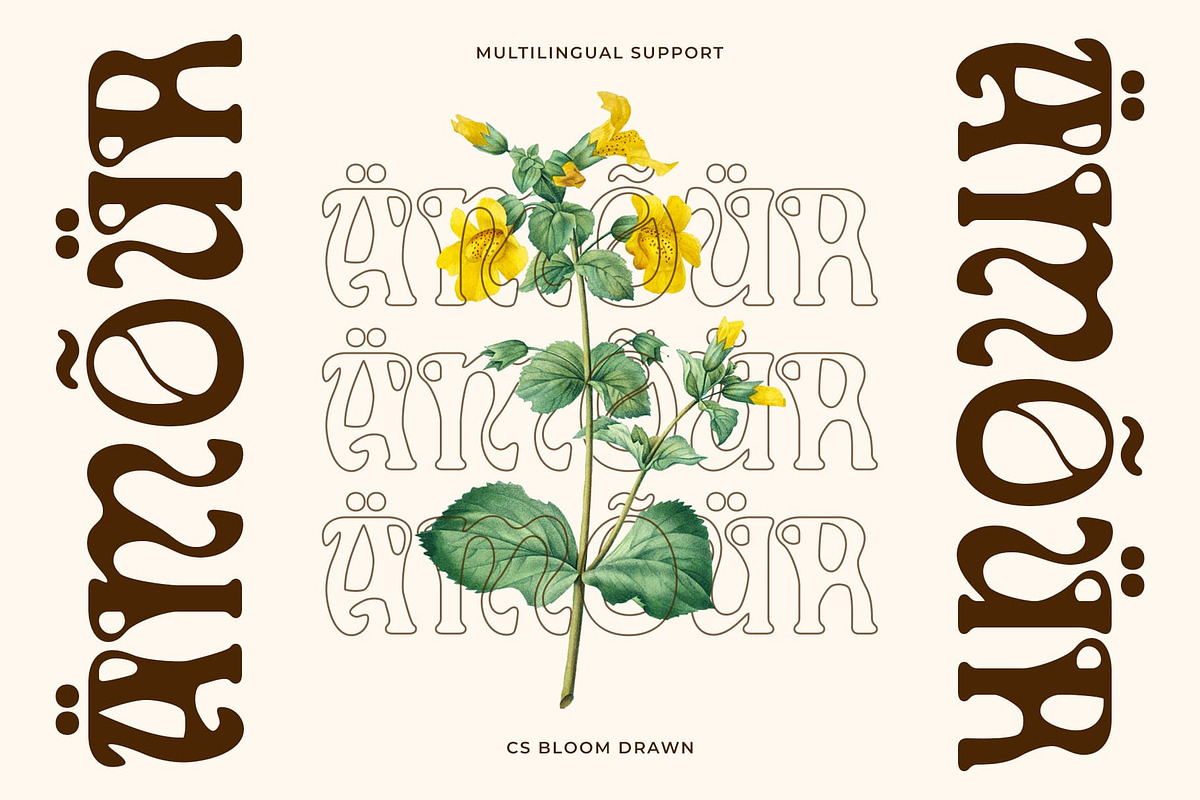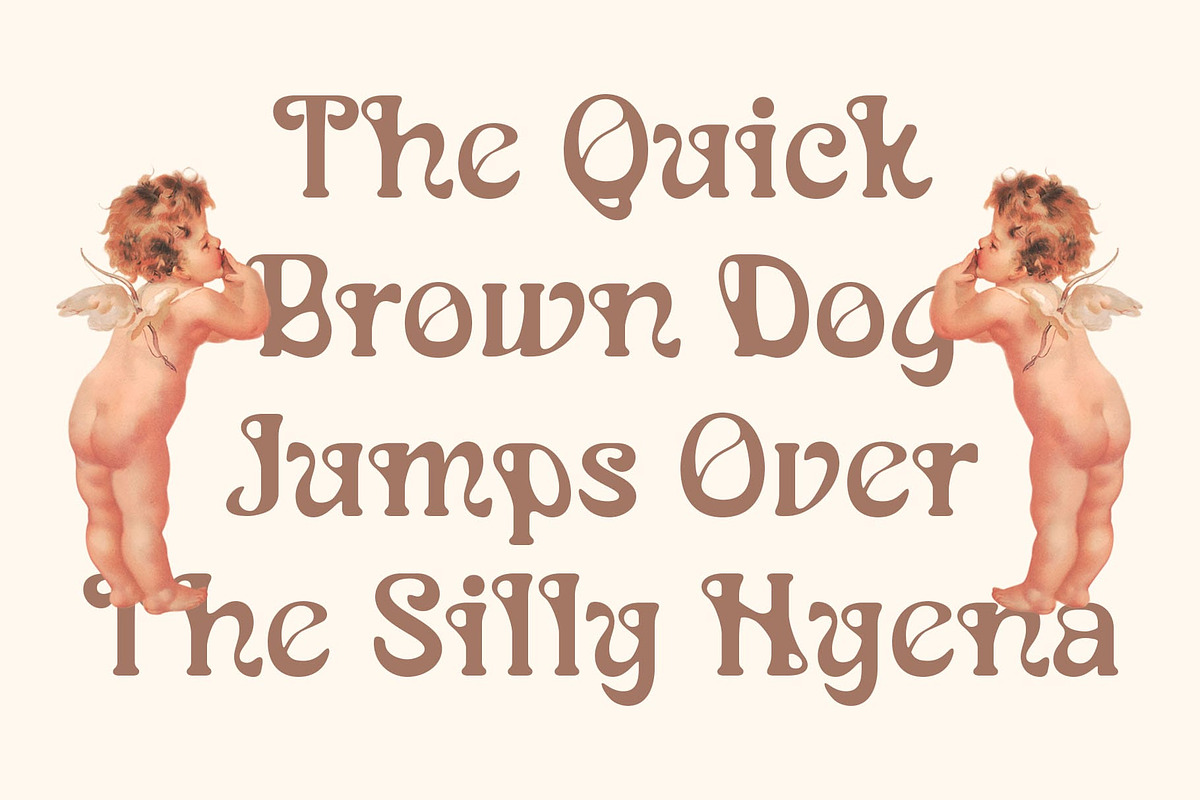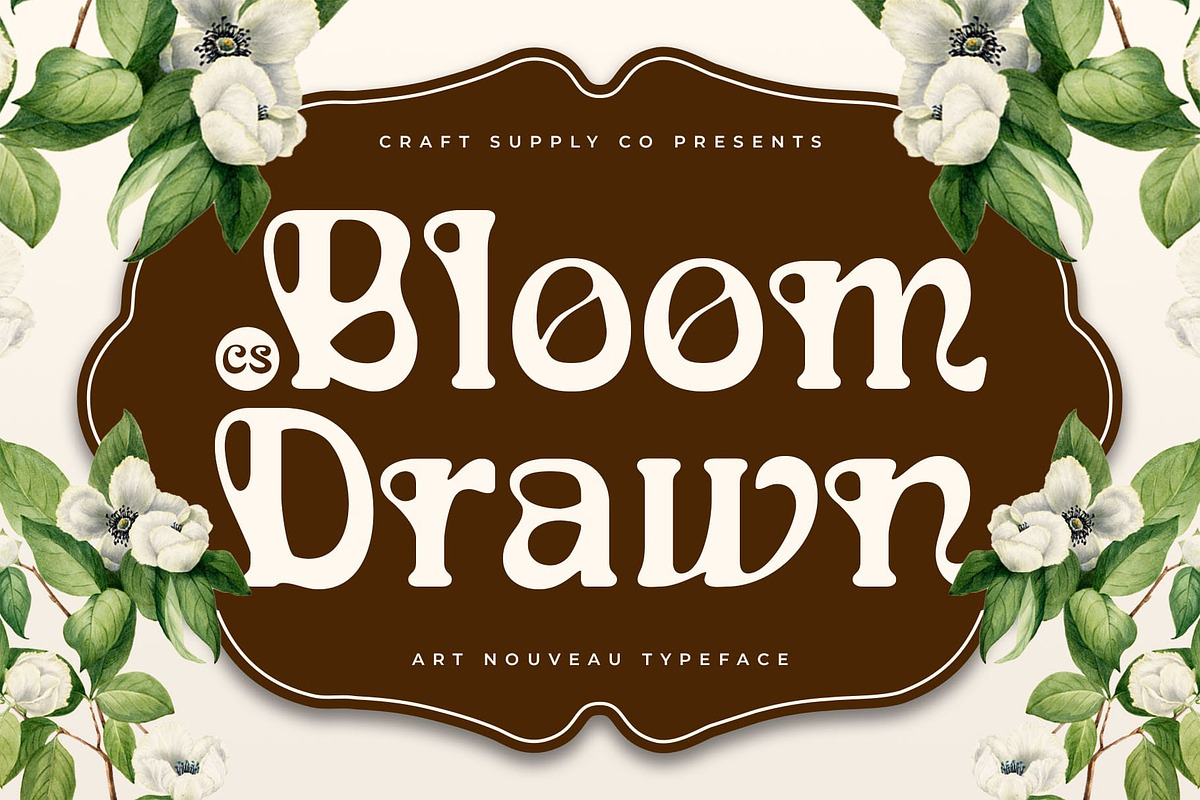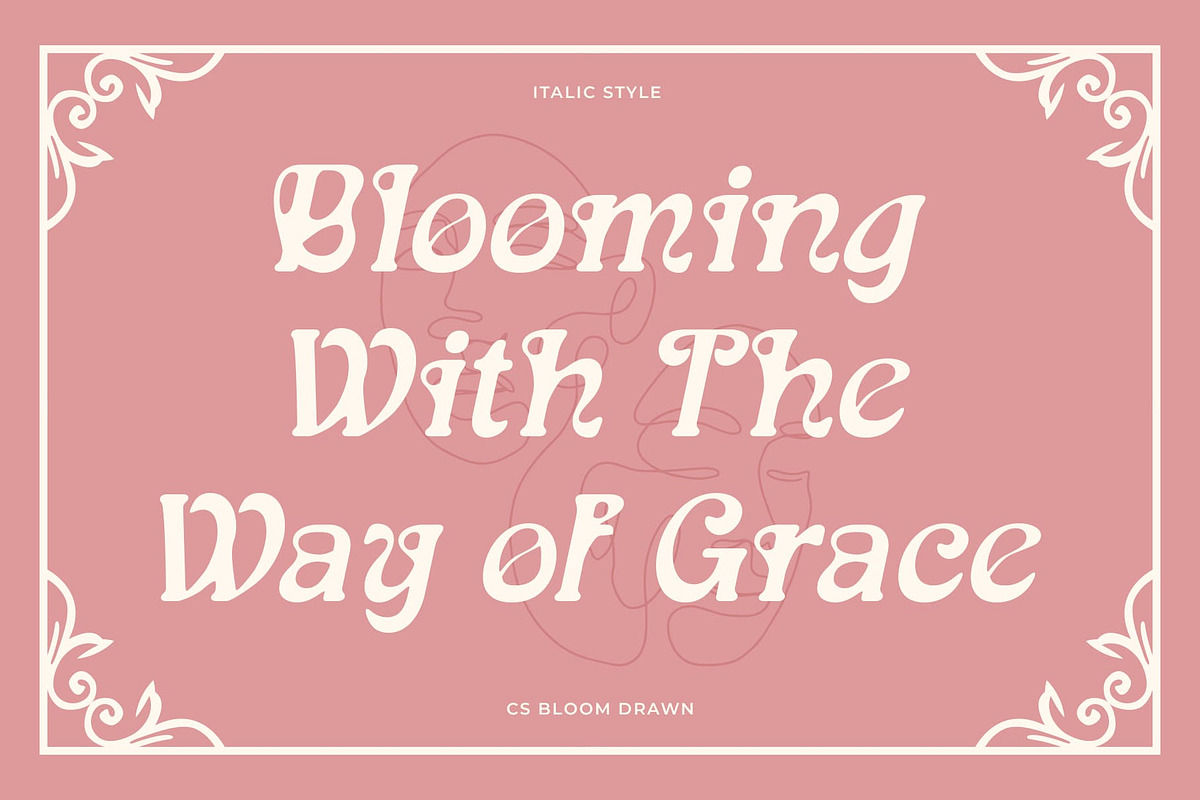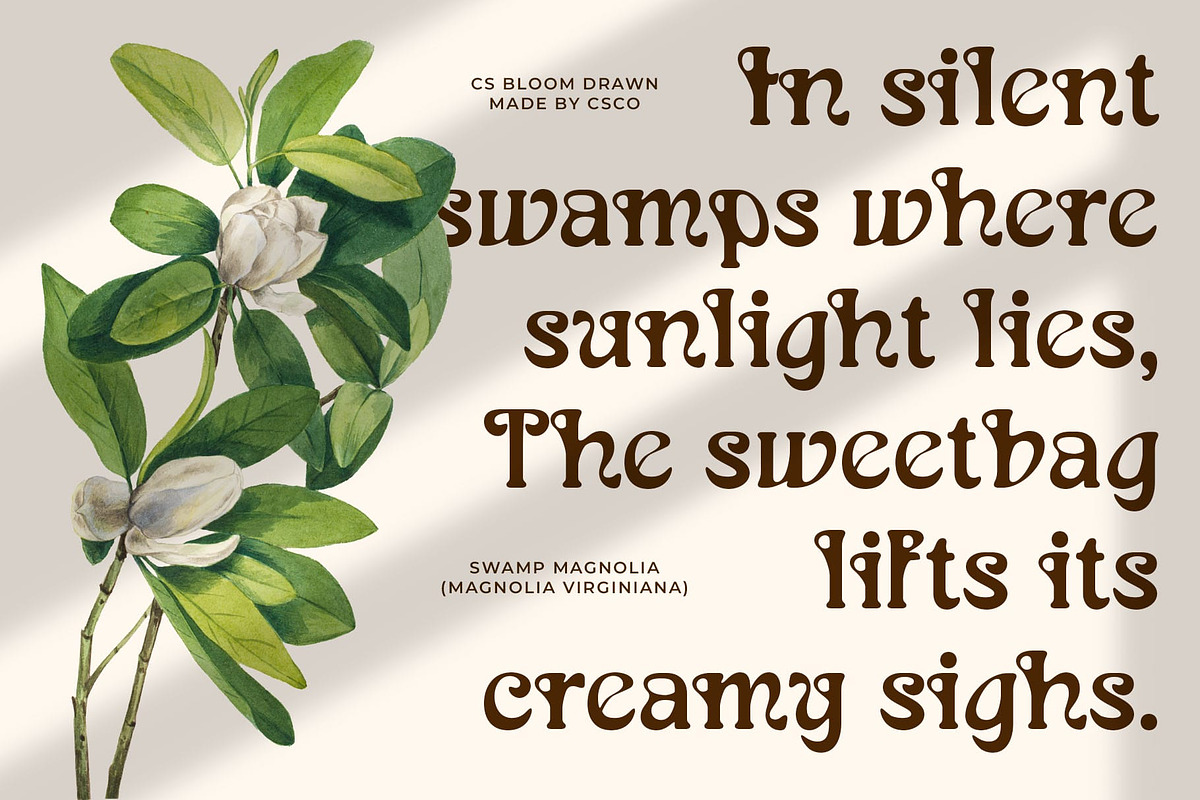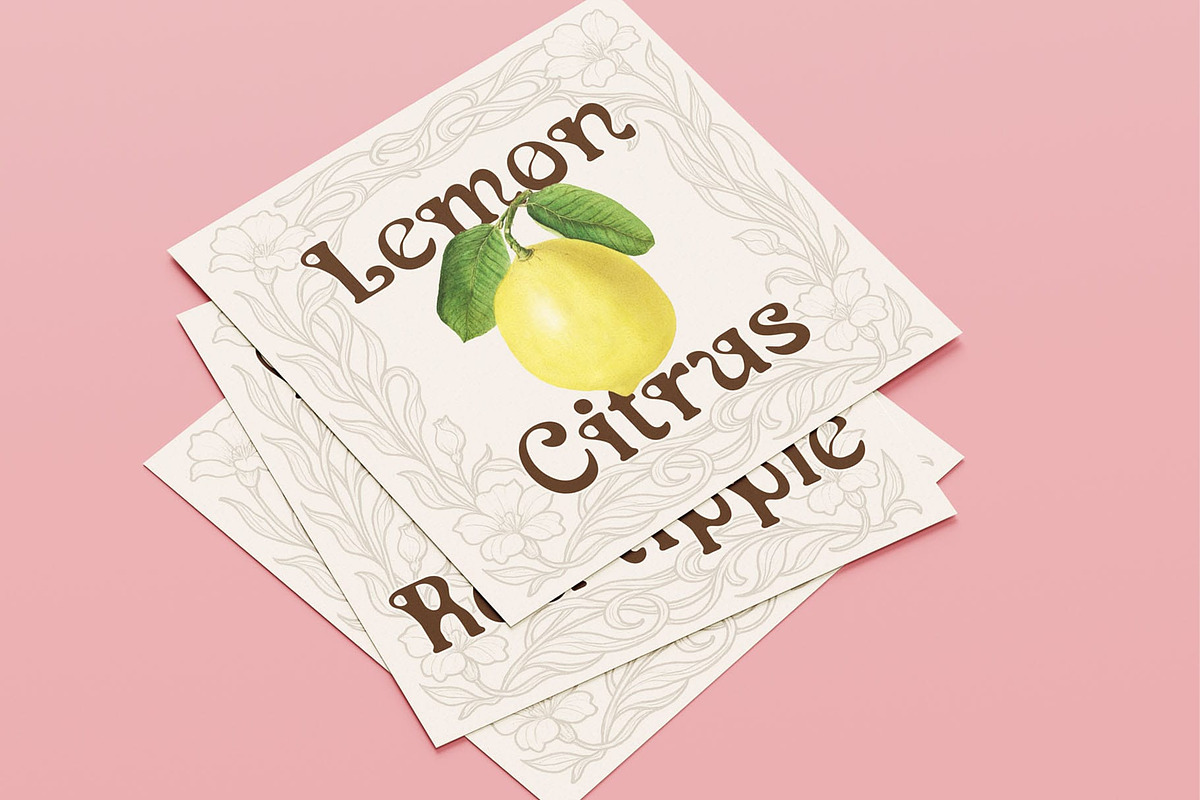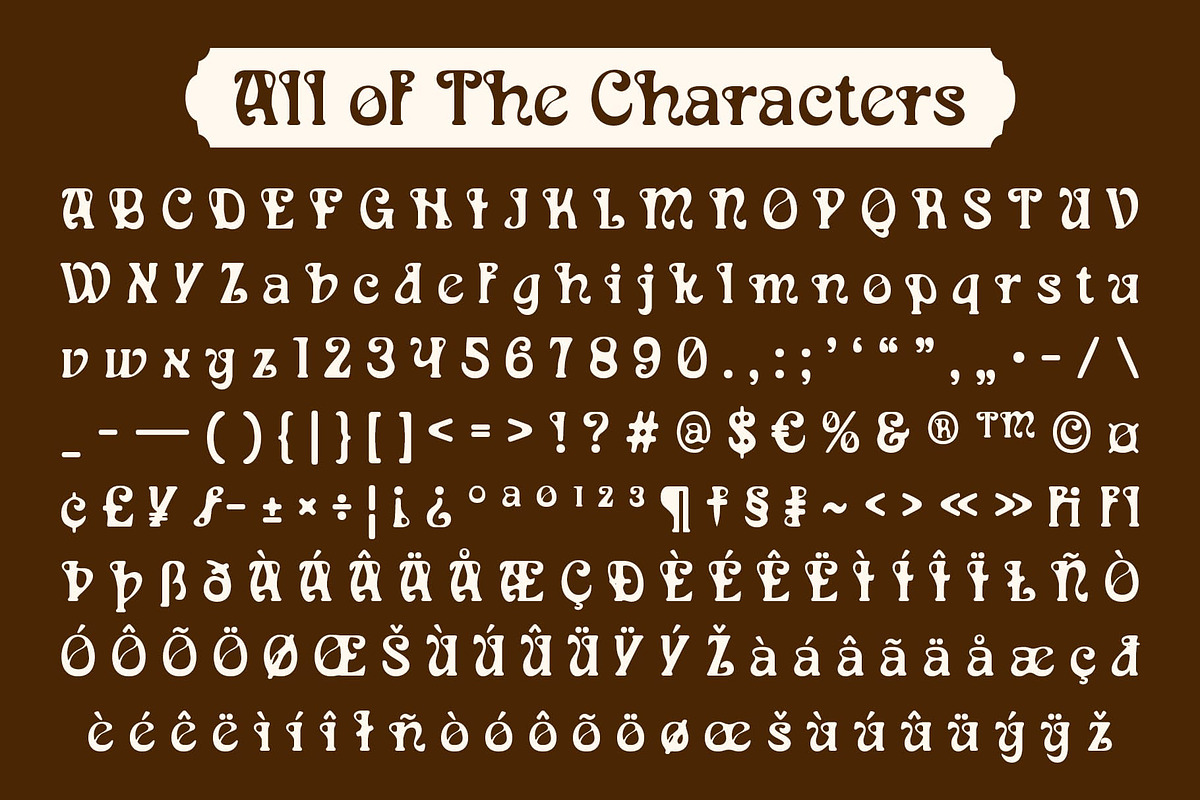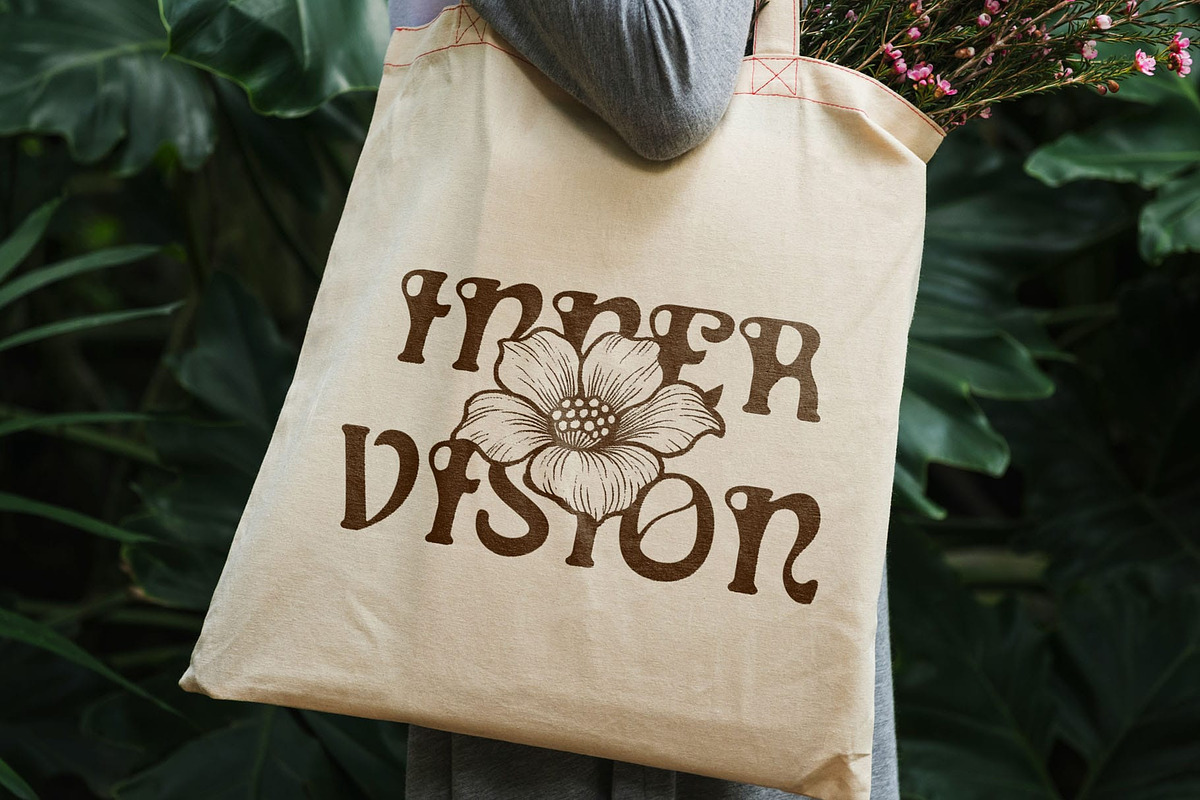
CS Bloom Drawn
CS Bloom Drawn: Where Art Nouveau Elegance Meets Handcrafted Charm
Flowing Letterforms with Vintage Sophistication CS Bloom Drawn is a display serif font inspired by the graceful curves and ornamental beauty of Art Nouveau. Its flowing letterforms exude a classic yet stylish presence, merging retro sophistication with refined typographic artistry. Each stroke feels deliberate, making the font ideal for elegant, attention-grabbing design.
Hand-Drawn Texture for Organic Expression Infused with a drawn effect, this font gains a handcrafted touch that adds warmth and personality. The subtle imperfections in the lines enhance its artistic vibe, giving it a rich, human quality that contrasts beautifully with its refined structure. This handmade aesthetic ensures every use feels bespoke and expressive.
Elegant and Luxurious Visual Appeal With its blend of decorative flourishes and serif structure, this luxurious vintage font radiates timeless luxury. It delivers a visual language that feels romantic and regal—perfect for designs aiming to embody grace, sophistication, and a touch of nostalgic flair.
Perfect for Packaging, Branding, and Editorial Design This feminine font shines in high-end product packaging, vintage-inspired branding, and editorial layouts that require both beauty and impact. Whether you’re working on boutique cosmetics, book covers, or stylish print media, this font elevates the visual story with a timeless, artistic charm.